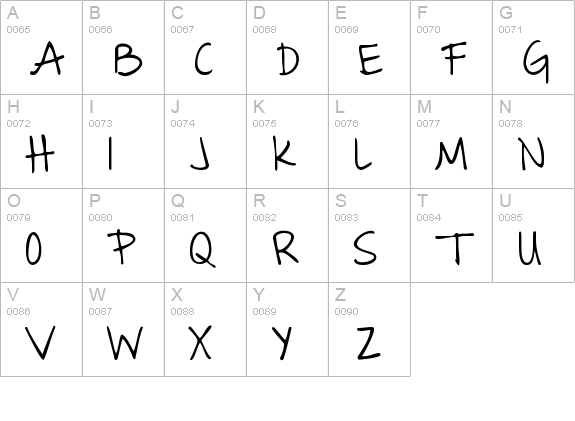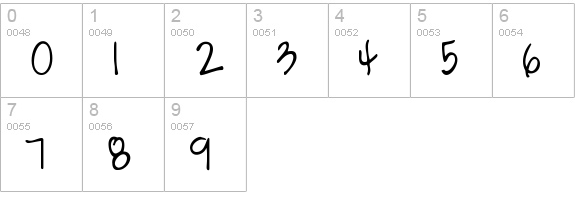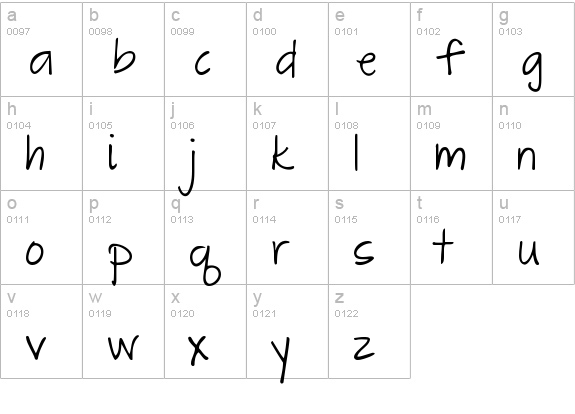
The Great Escape font is a stylish and versatile typeface that exudes a sense of adventure and excitement. With its bold letterforms and unique design elements, this font is perfect for adding a touch of flair to your projects. Whether you're working on a poster, logo, or website design, The Great Escape font will help you stand out from the crowd. What makes this font even more appealing is that it is completely free to download at FontsMarket.com. That's right, you can access this high-quality font at no cost, making it a valuable addition to your font collection. So go ahead and unleash your creativity with The Great Escape font and make your designs truly unforgettable.